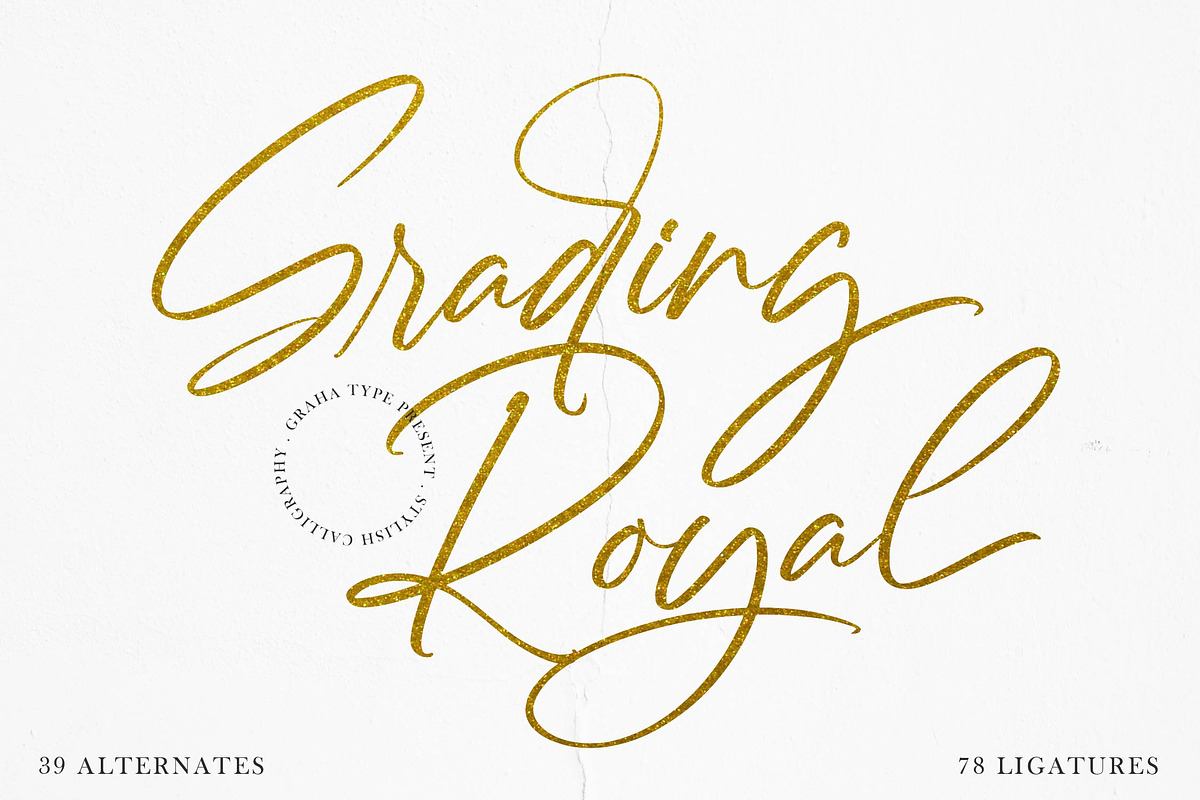
Grading Royal Font - Stylish Calligraphy Free Download is an elegant and sophisticated calligraphy typeface with beautiful, flowing letterforms. This font exudes luxury and class, making it perfect for high-end branding, wedding invitations, logos, greeting cards, and any design that requires a refined, handwritten touch. The graceful curves and swashes give it a timeless, artistic appeal.
Using the Grading Royal Font - Stylish Calligraphy Free Download brings a personal and luxurious touch to your creative projects. Whether you're crafting an elegant logo, designing a romantic invitation, or working on upscale stationery, this font provides a sense of elegance and beauty in every character.